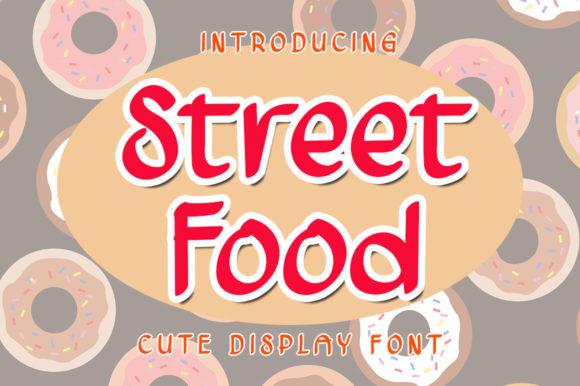
Step into the vibrant world of Street Food Font, a display font that dances on the pages like a culinary masterpiece. This delectable font, crafted with the utmost care by Mr. Soon Design, embodies the essence of joy and elegance. With its crisp and clean lines, Street Food Font is a visual treat that will elevate your projects to new heights.
Indulge in the versatility of Street Food Font, a culinary-inspired creation that adds a dash of flavor to any design. Whether you're crafting wedding invitations, designing logos, or creating social media posts, this font is the perfect ingredient to add a touch of sophistication and charm. It's a font that speaks volumes, capturing the essence of celebration and togetherness.
Experience the joy of using Street Food Font, a font that simplifies your design process and lets your creativity shine. Let the smooth curves and playful strokes of this font guide you towards stunning designs that will leave a lasting impression. With Street Food Font, your business will radiate with beauty and attract customers like bees to honey.
Savor the moments when your designs come to life with Street Food Font. It's a font that captures the essence of happiness and celebration, making it the perfect choice for those special occasions. Whether it's a wedding, a birthday, or a casual gathering, this font will add a touch of magic to your designs, leaving your audience captivated.